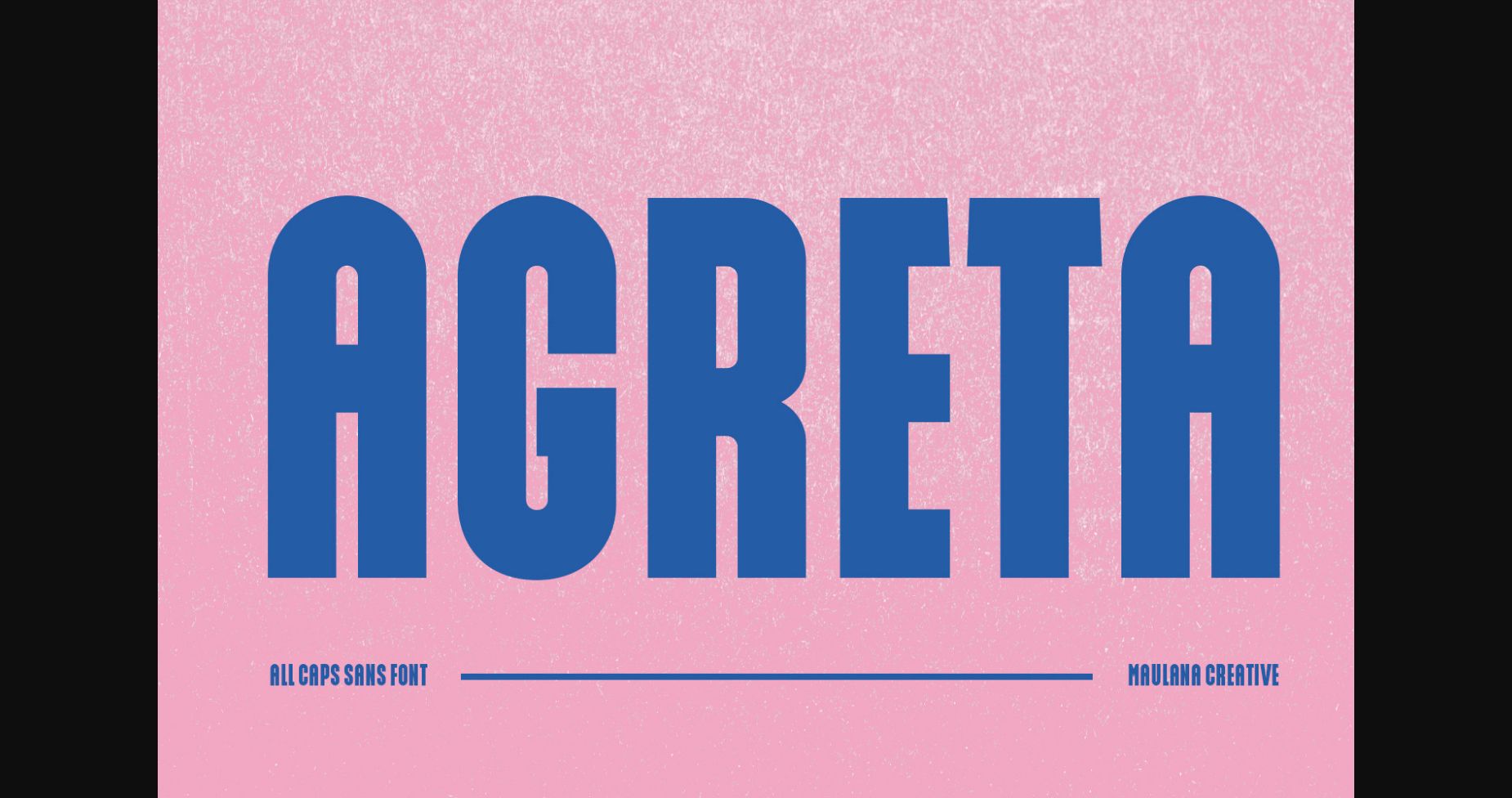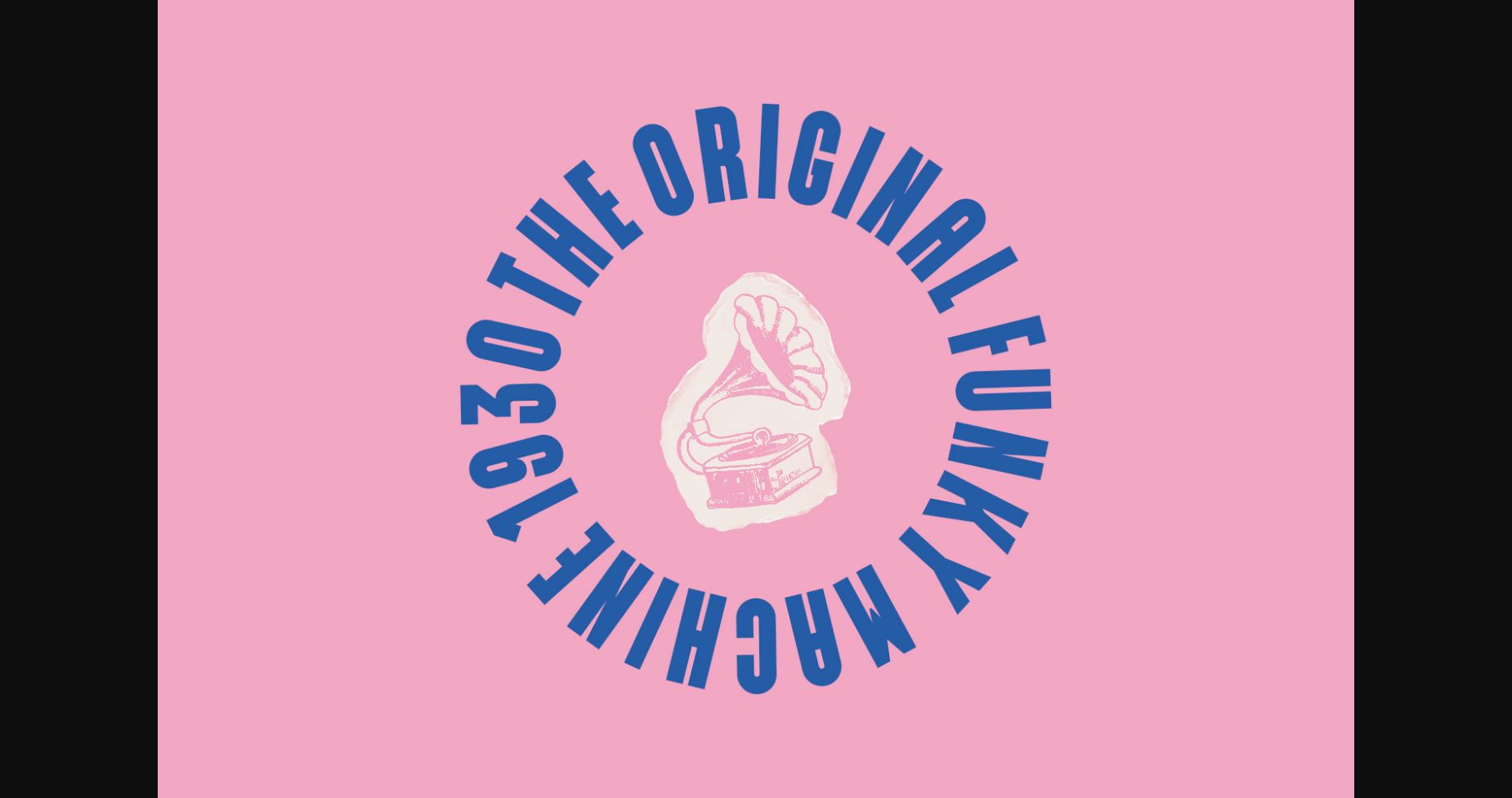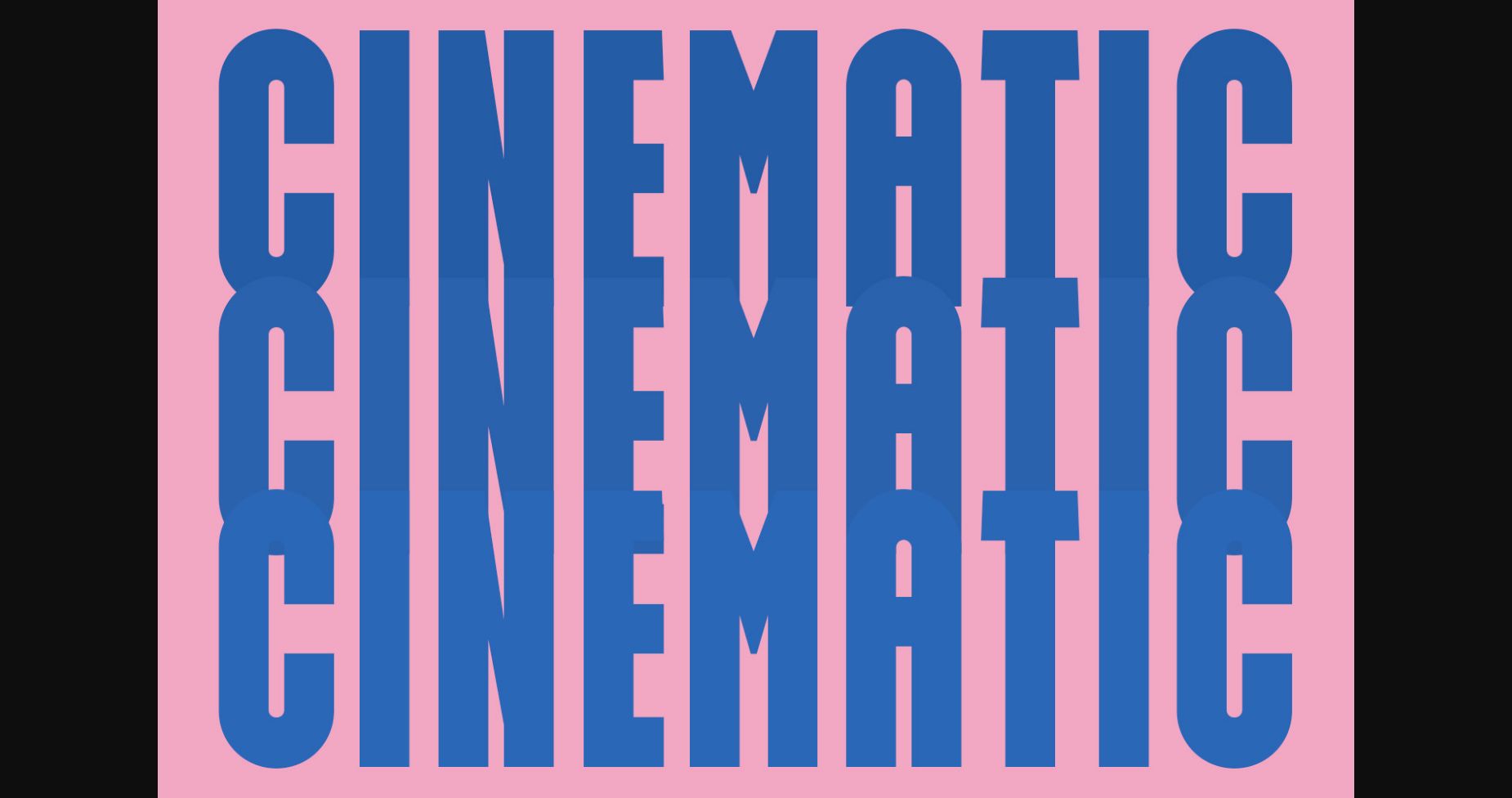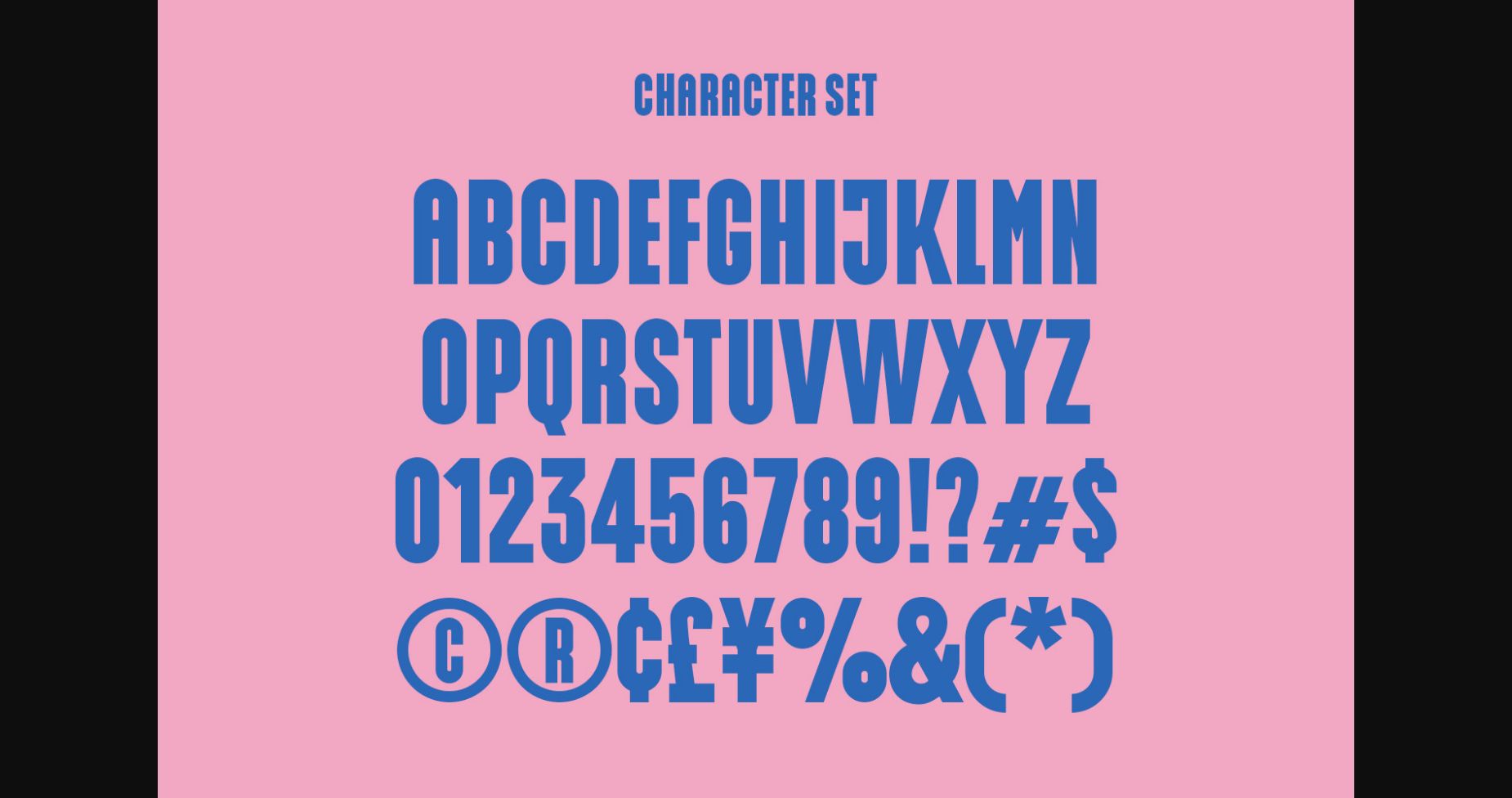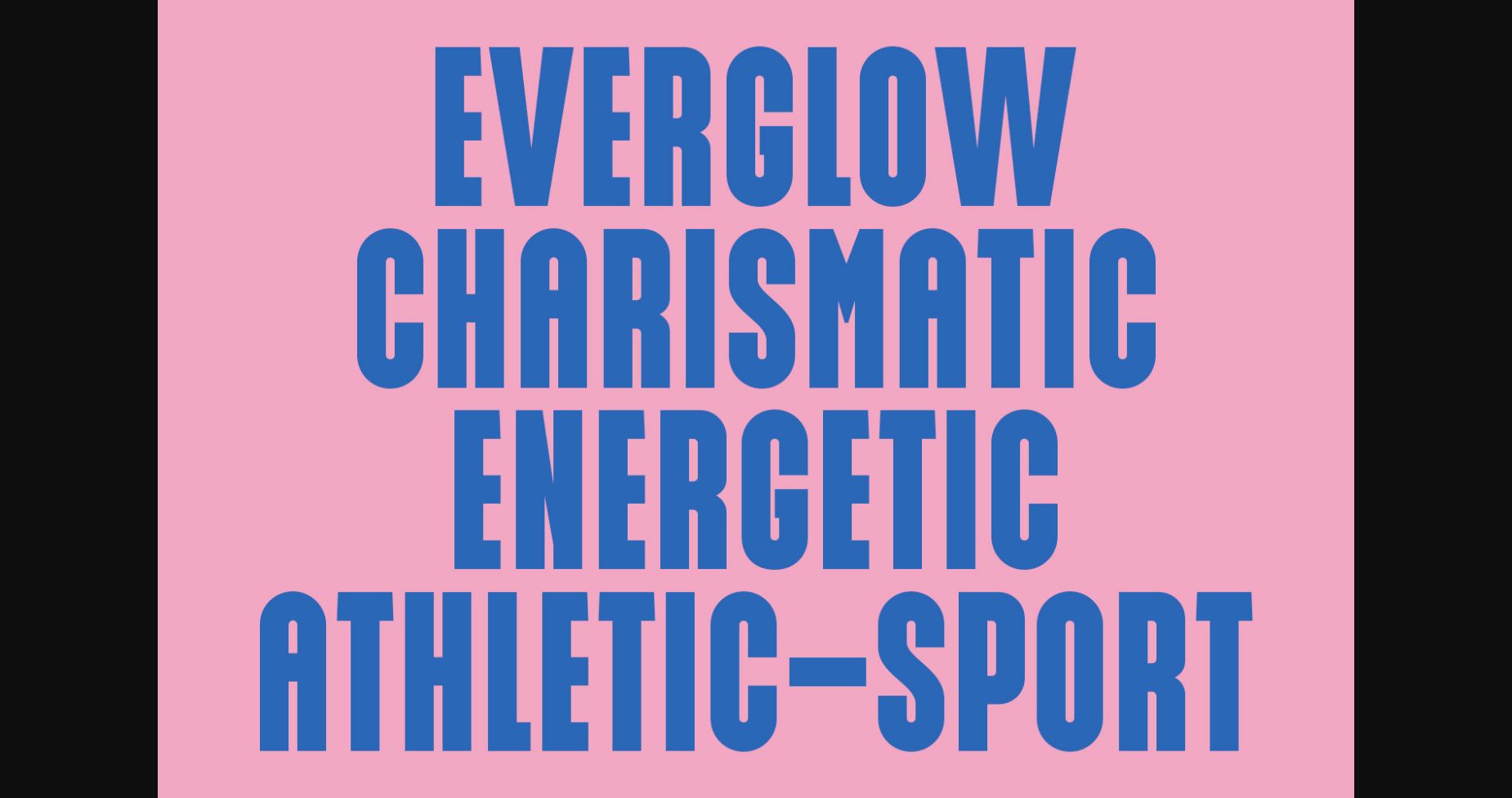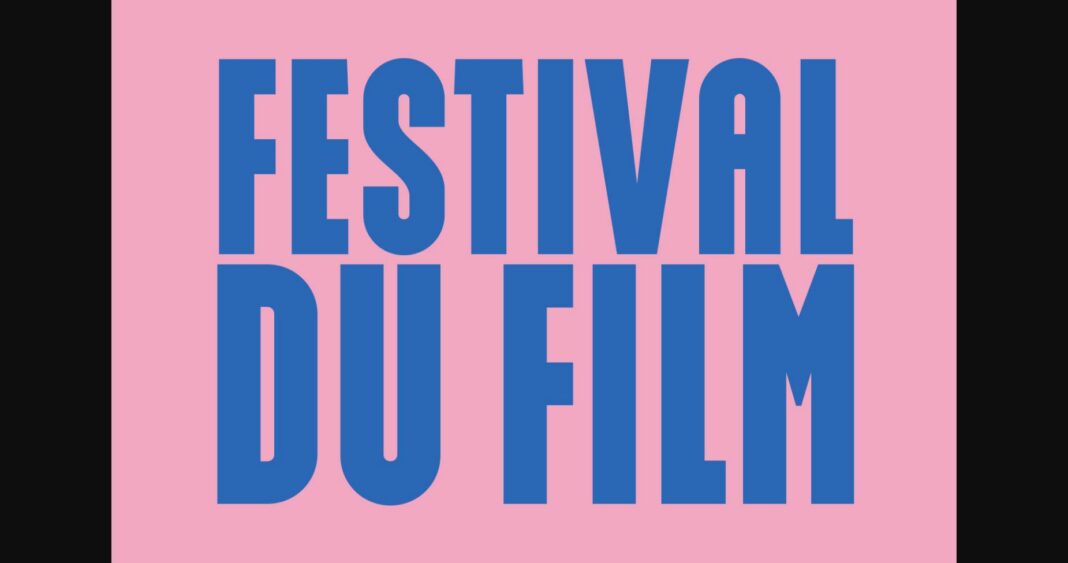
Agreta Font
About Agreta Font
Agreta is a stunning, modern sans-serif font that commands attention with its sleek lines, sharp edges, and bold personality. Its unique character gives it an edge over its competitors, ensuring that it stands out from the crowd. Its versatility ensures that it can be used for a variety of projects, from branding to web design.